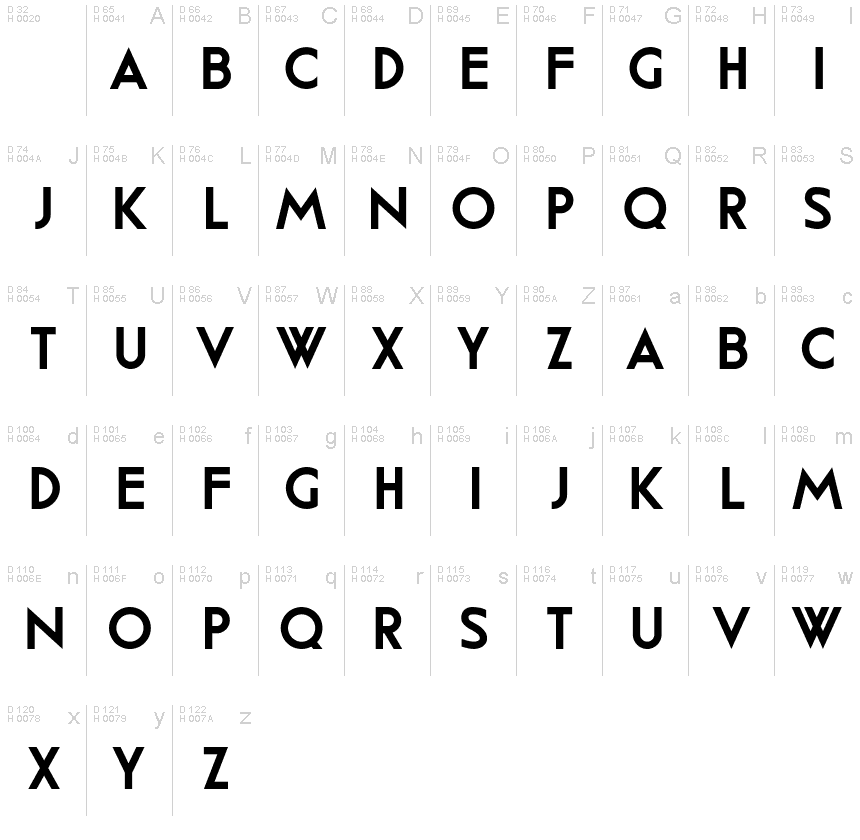
Atlantica Regular
Atlantica, a captivating sans serif font designed by Vladimir Nikolic, boasts a semi-expanded width that adds a touch of sophistication to any project. Its clean and modern lines make it perfect for branding materials, such as logos and business cards, while its legibility ensures readability in both print and digital designs. With its versatility, Atlantica is also an ideal choice for editorial layouts, signage, packaging design, and website headers. Elevate your creative projects with Atlantica's timeless elegance and effortlessly convey your message with clarity and style.